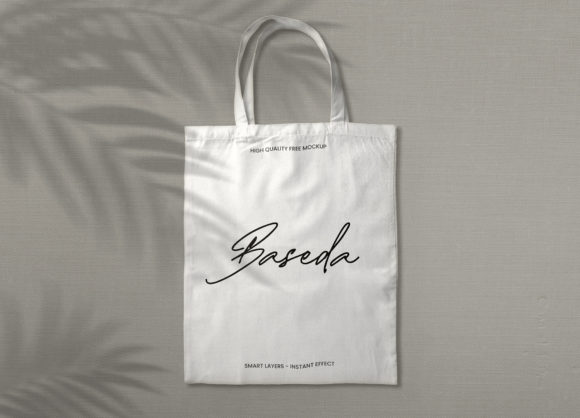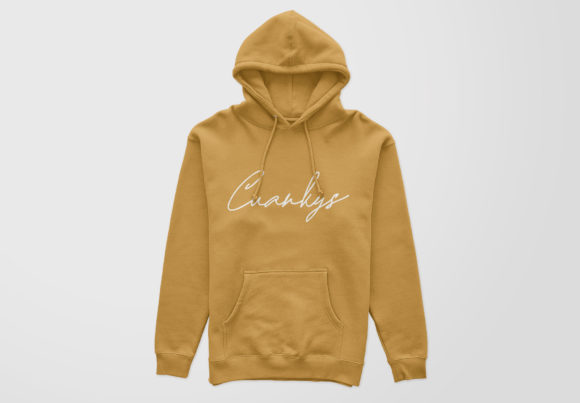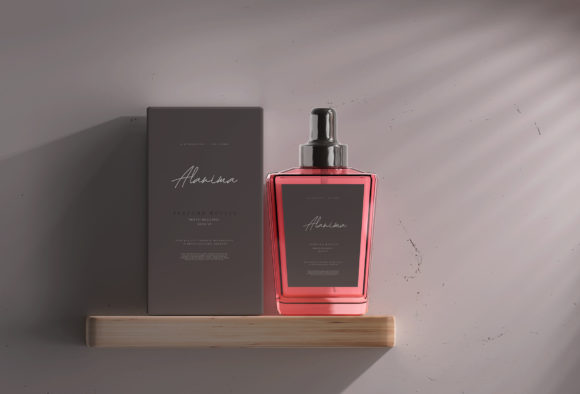
The Perfect Signature Font: Elevate Your Brand with Baceda Signature Font
Have you ever sat in front of your computer, staring at a blank document, trying to find the perfect words to express your creativity? The cursor blinks, and your mind goes blank. You know you need something special, something that captures the essence of your brand. This is where the magic of typography comes in.
Baceda Signature Font is a beautifully crafted handwritten font, designed to leave a lasting impression. With its classy calligraphic influences and modern twist, it’s the perfect choice for designers looking to elevate their brand’s visual identity. Whether you’re a seasoned professional or a creative enthusiast, this font is sure to become a true favorite. By incorporating Baceda Signature Font into your design, you’ll add a touch of sophistication and elegance that’s hard to resist.
As a valuable addition to any designer’s toolkit, Baceda Signature Font offers endless possibilities for creative expression. From business cards to wedding invitations, and from logos to marketing materials, this font is the perfect companion for any project that requires a personal touch.
Baceda Signature Font Key Features
- Font Family: Baceda Signature Font is a unique, hand-drawn script font designed for signature and personal use.
- Character Count: The font includes over 300 characters, including uppercase and lowercase letters, numbers, and punctuation marks.
- Unique Characteristics: Baceda Signature Font features a flowing, handwritten style with subtle variations in letterforms, giving it a personal and authentic feel.
Baceda Signature Font Review
Overall, I’m impressed with the Baceda Signature Font. It’s a stylish and elegant script font that’s perfect for designers looking to add a touch of sophistication to their projects. ✨ The font’s fluid curves and delicate flourishes make it ideal for use in invitations, wedding stationery, and other high-end designs.
Here are some of the things that work well in this font:
- ✨ Elegant and refined feel, perfect for high-end designs
- ✨ Highly legible, even at small font sizes
- ✨ Supports a wide range of languages, making it a great choice for international designs
- ⚠️ Limited character set, may not be suitable for extended text
- ⚠️ May not be as versatile as other script fonts, may be too ornate for some designs
- ⚠️ Some users may find the font too decorative, which can make it difficult to read
Overall, I’d recommend the Baceda Signature Font to designers who are looking for a elegant and refined script font. However, it’s not a one-size-fits-all solution, and designers should carefully consider whether it’s the right choice for their project.
Use the Baceda Signature Font for creating elegant and modern designs. It is particularly well-suited for use in branding materials, such as logos and business cards.
Experiment with different font sizes and colors to add depth and visual interest to your designs.
Use the font in conjunction with other elegant and modern design elements, such as minimalist graphics and clean lines.